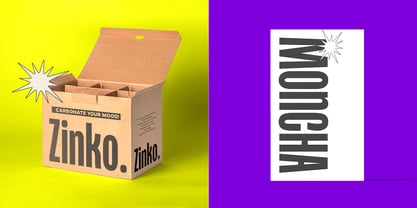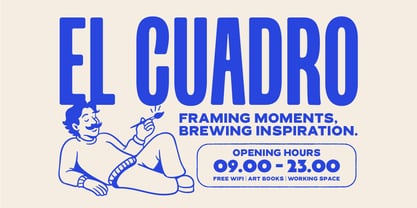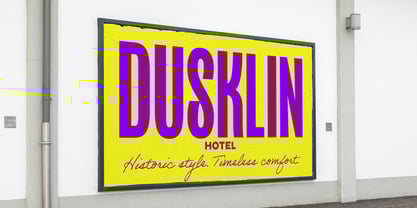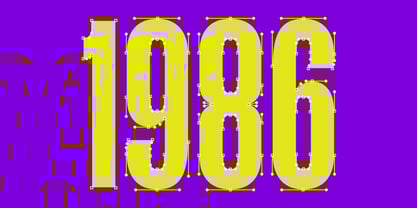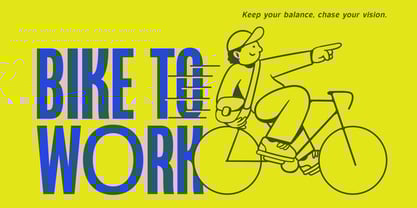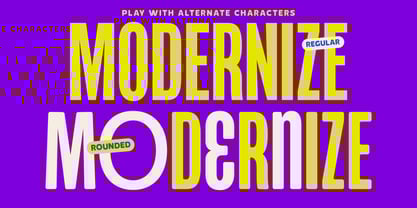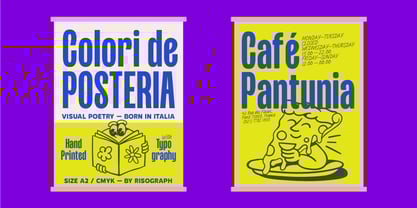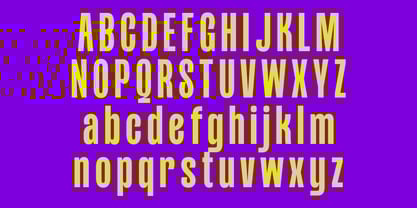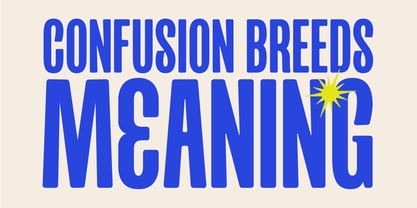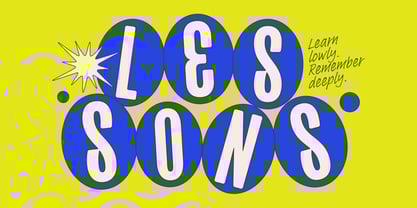
The Barcon Font Family was designed by Bagas Ferdiansah, Septianto Nugroho and published by The Native Saint Club. Barcon contains 2 styles and family package options.
Barcon is a sharp and stylish condensed sans serif font, crafted with clean lines and a modern minimalist touch. Its narrow width makes it ideal for bold headlines, standout titles, and sleek, space-saving layouts. Available in two styles Regular and Rounded. It also includes multilingual support, making it a versatile choice for a wide range of creative projects.